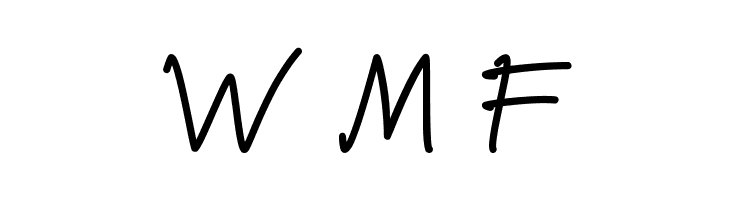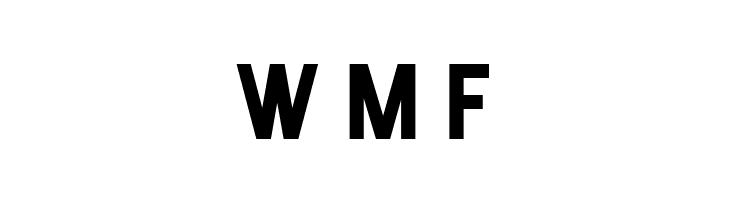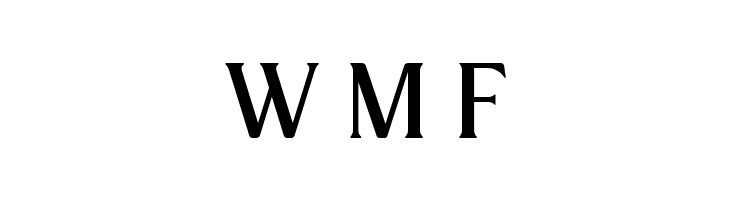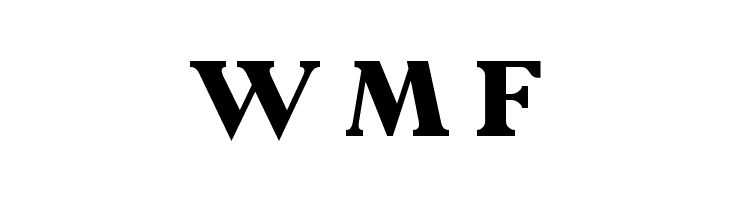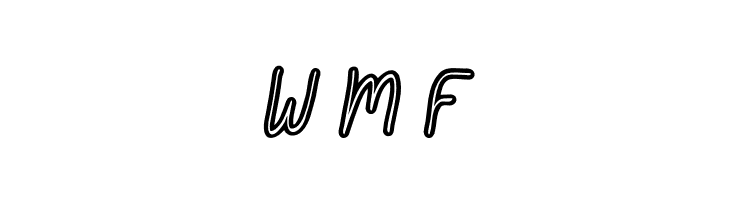
A playful, casual handwritten font with smooth, flowing lines and a natural feel.
A bold, flowing script font with elegant, cursive letterforms.
A bold, modern sans-serif font with clean lines and uniform strokes.
A playful serif font with a personal touch and regular weight.
A bold serif font with a classic and authoritative style.
A playful, whimsical script font with a handwritten style.
A playful, bold outline font with rounded, dynamic letterforms.
A playful, hand-drawn font with an engraved texture and rounded, slightly irregular characters.
A bold, playful handwritten font with smooth, rounded edges.
A bold, handwritten font with a lively and dynamic style.